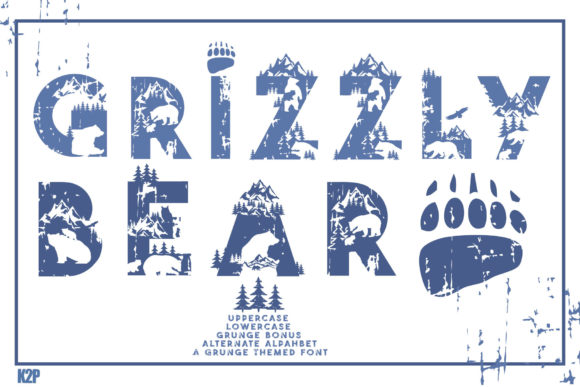
Prepare yourself to be captivated by Grizzly Bear, an extraordinary decorative font that will unleash your creativity like never before. Step into a world of fun, originality, and assertiveness as you explore the boundless possibilities this remarkable font has to offer.
With its bold and captivating strokes, Grizzly Bear is the perfect companion for projects that demand attention. Whether you're crafting tent cards, designing logos, creating posters, or embarking on any other creative adventure, Grizzly Bear will leave an unforgettable mark.
Immerse yourself in the untamed spirit of Grizzly Bear and let your imagination soar. Its energetic and playful nature is ideal for projects related to fishing, camping, traveling, and any endeavor that calls for a touch of adventure. Unleash your inner explorer and let Grizzly Bear guide you to design greatness.
But Grizzly Bear's allure doesn't stop there. It's also incredibly versatile, effortlessly adapting to a wide range of design styles. From whimsical and playful to elegant and sophisticated, Grizzly Bear seamlessly blends with your vision, adding a touch of magic to every project.
But what truly sets Grizzly Bear apart is its ease of use. PUA encoded, this remarkable font grants you effortless access to all its glyphs and swashes. Unleash your creativity without limits, knowing that Grizzly Bear has got your back.